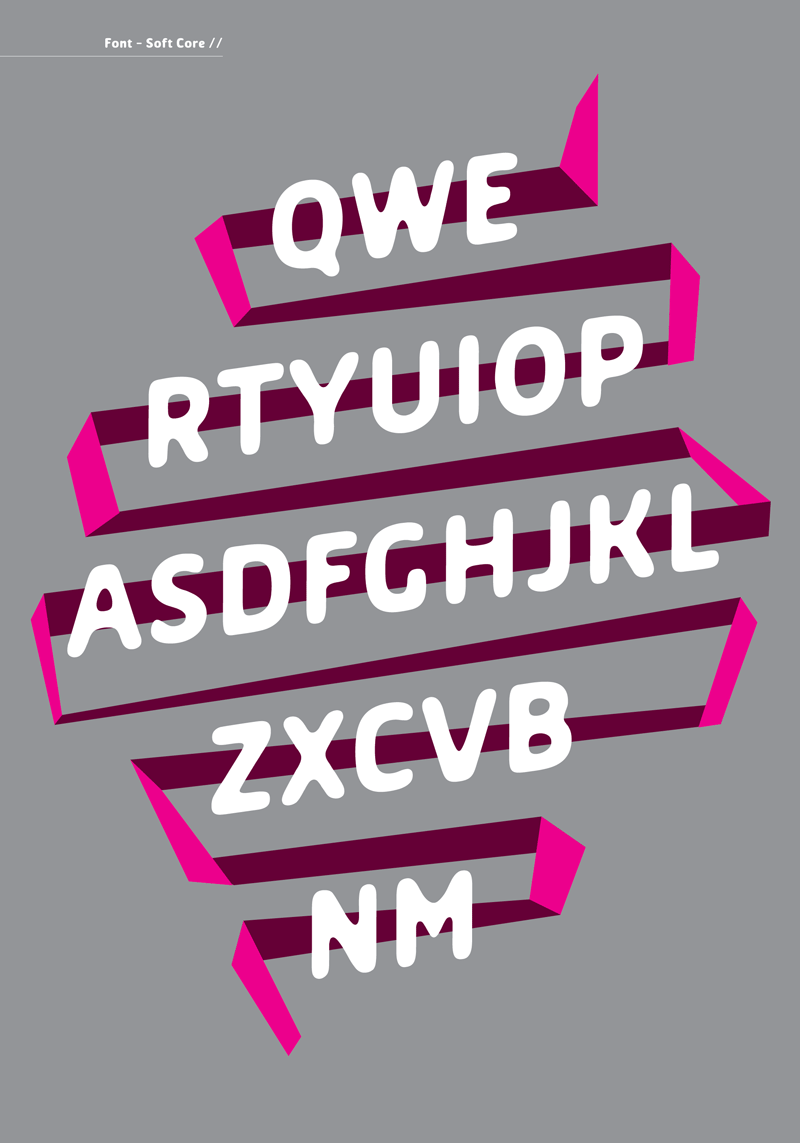
Preview and download Soft Core Font. Created by Matija Blagojevic in Fancy Various styles with Free for personal use license.
Font name: | Soft Core |
Author: | Matija Blagojevic |
Note by Matija Blagojevic | |
The 'Soft core' font is the round version of the 'Core' font which i have made for my MA degree in graphic design and i am sharing this font with you! Every donation is welcome. Free for personal use, for commercial use, please purchase a license here: https://www.creativefabrica.com/product/soft-core/ |